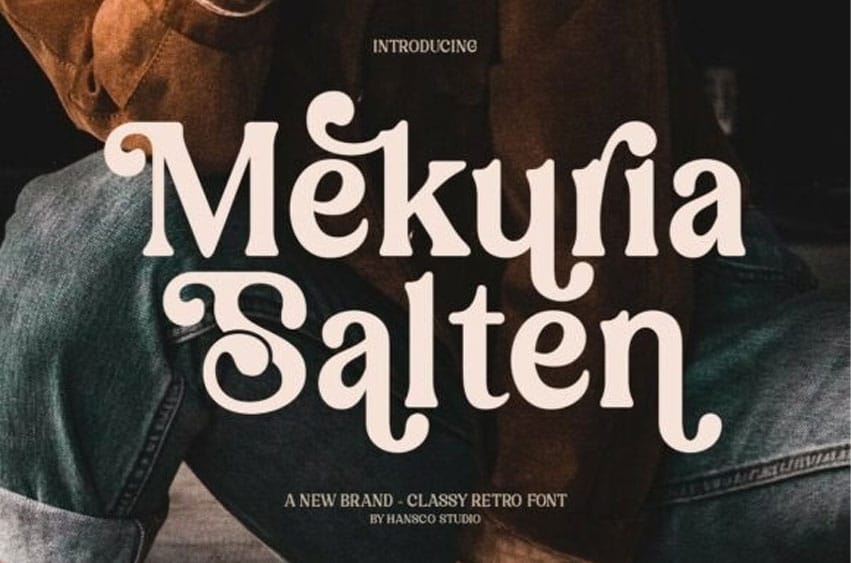
Mekuria Salten Font is a clean and simple retro serif font with a timeless charm. It features a classic serif structure complemented by stylish alternative swash characters, adding a bold and nostalgic flair to your design projects. Whether you’re aiming for a vintage aesthetic or a standout headline, this display font brings character and impact to your creative work.
Bonus swash characters for added stylistic appeal.
Elevate your designs with the retro elegance and adaptability of Mekuria Salten—a must-have font for creatives seeking a vintage edge with a modern twist.